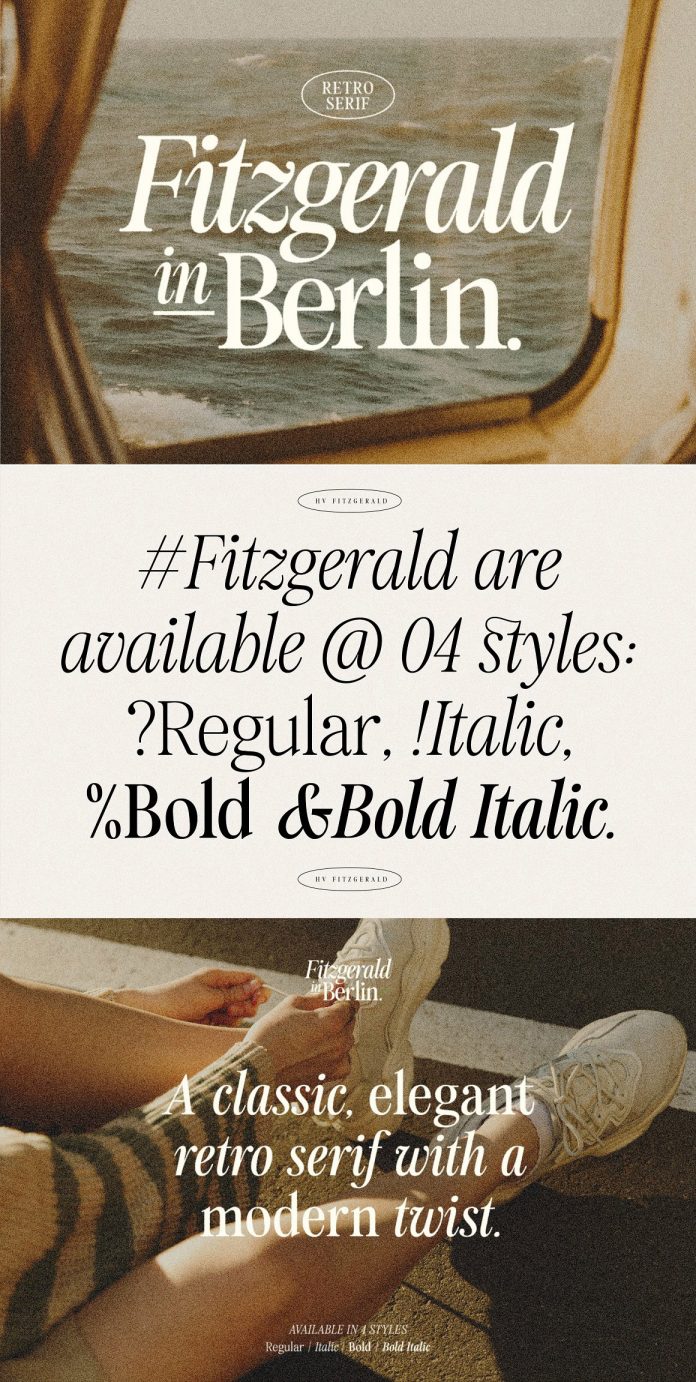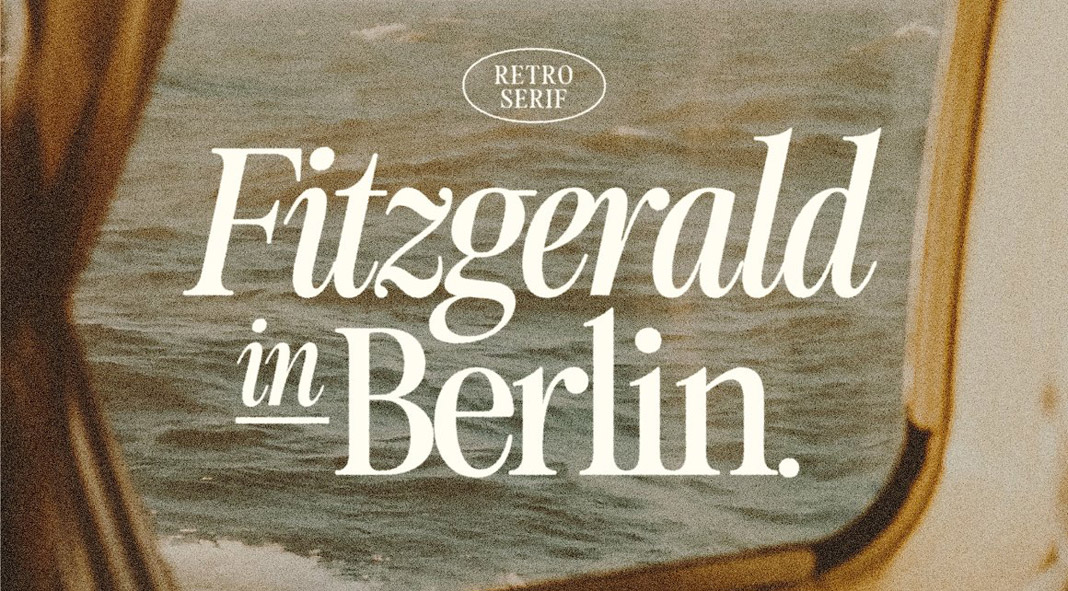
Say hello to Fitzgerald, a classic retro serif font inspired by vintage aesthetics.
Designed and published by Harmonais Visual, the Fitzgerald font comes in four styles: regular, italic, bold, and bold-italic. It was designed as a classic and elegant retro serif font with a modern twist. With its great readability, the Fitzgerald font is well suited for both headlines and body texts. Using this typeface, you can add a nostalgic yet clean style to your design. Just click on one of the following links to learn more about all features.